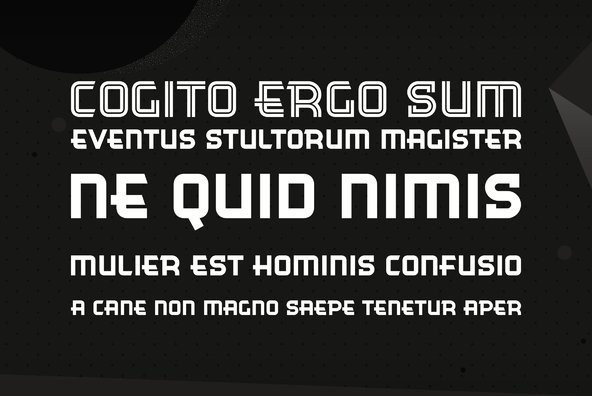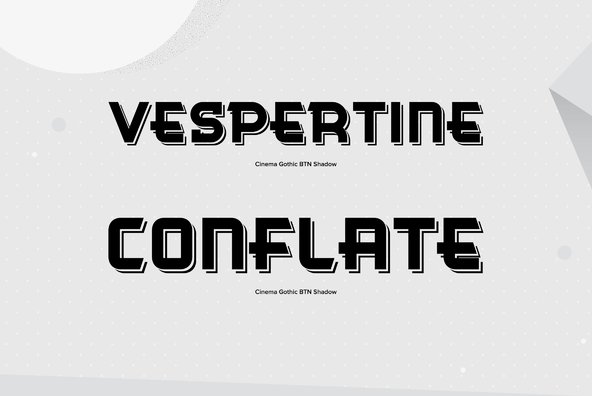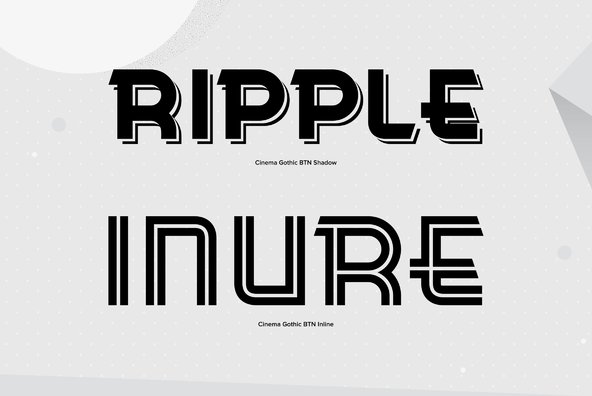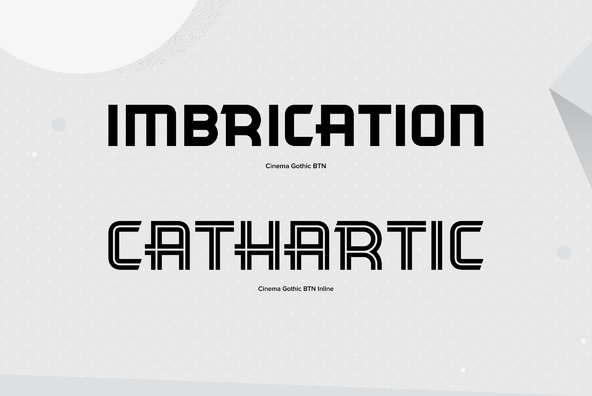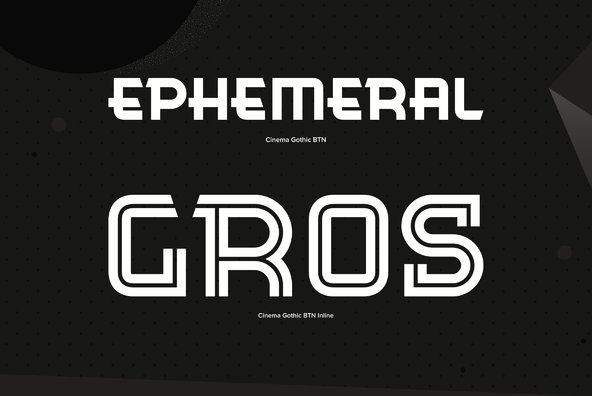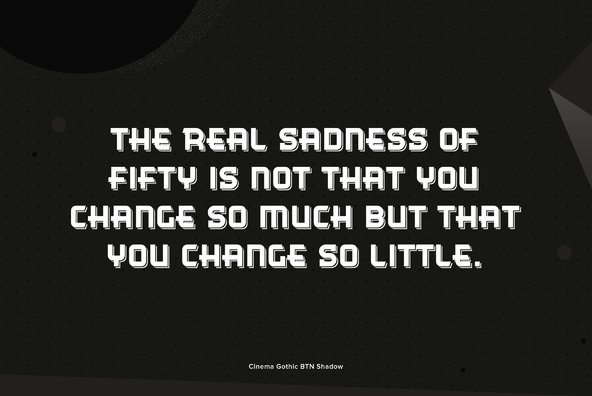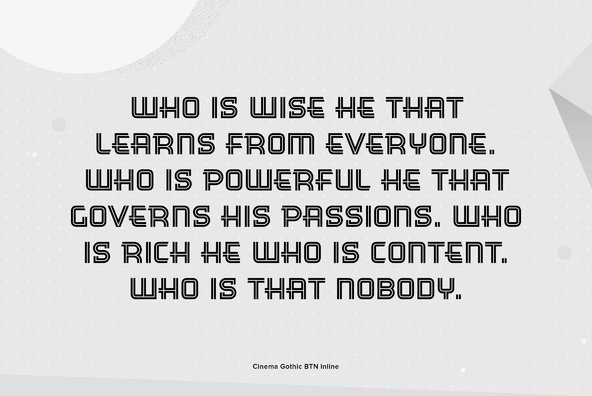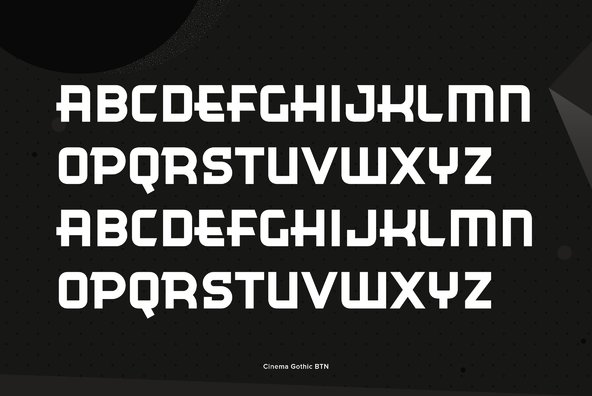
Cinema Gothic
Cinema Gothic is an Art Deco style typeface with a vintage 1930s feel inspired by popcorn palaces, pharmacies, and motels of the post depression era.